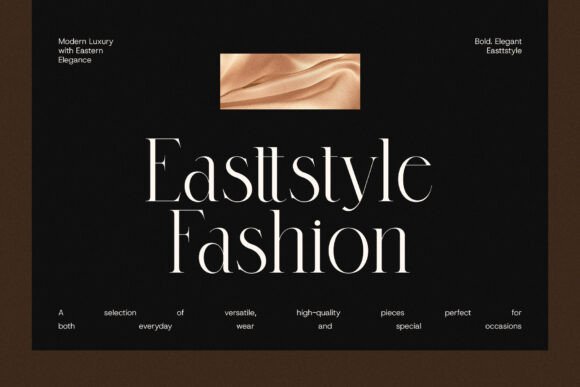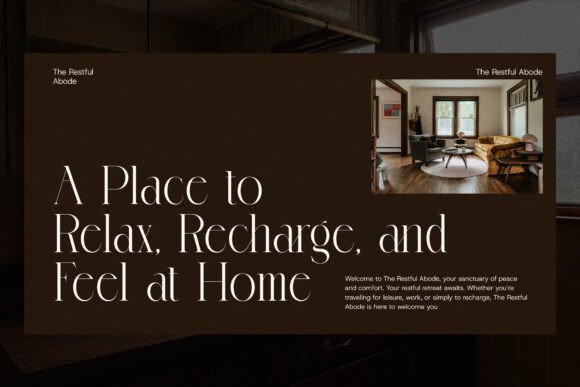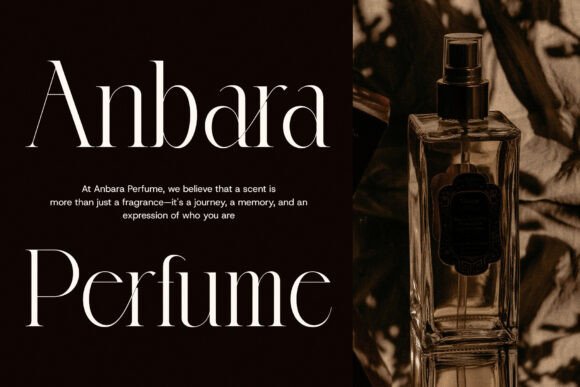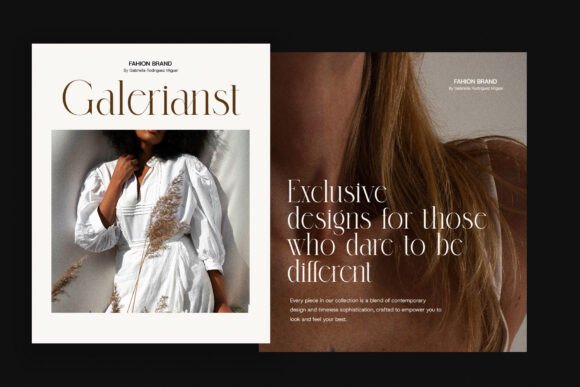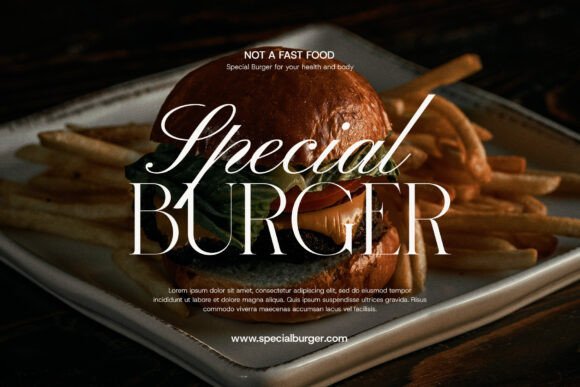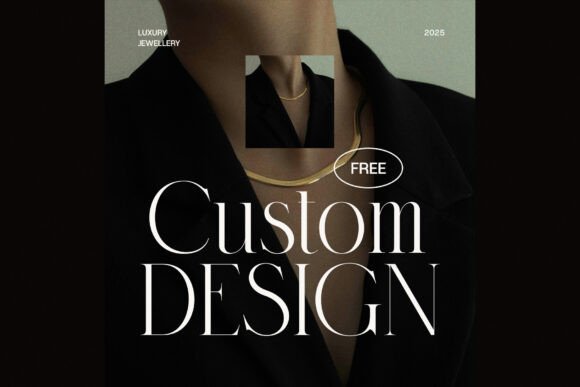
Introduction to Queny Font
As a designer, you’ve probably experienced that moment of creative bliss when you find the perfect font to elevate your project. For some, it’s the subtle nuance of a well-crafted sans-serif, while for others, it’s the sophisticated charm of a beautifully designed serif. For those who crave a touch of elegance, the Queny Font is sure to be a game-changer. This stunning typeface seamlessly blends timeless sophistication with modern design, making it the perfect addition to any high-quality design resource.
Whether you’re working on a luxurious logo, a high-end branding campaign, or an eye-catching advertisement, the Queny Font provides the ideal balance between classic style and modern appeal. Its unique letter shapes and beautifully crafted serifs make it a standout choice for designers looking to make a bold statement.
Key Features of Queny Font
- High-quality, professional font design ideal for creative projects.
- Includes a comprehensive character set, supporting multiple languages and alphabets for global design projects.
- Unique, elegant design aesthetic suitable for a wide range of creative projects, from logos to typography-based art.
Honest Review: Queny Font
As a designer, I’m always on the lookout for high-quality design resources that can elevate my creative projects. Recently, I stumbled upon Queny Font, and I must say, it’s been a game-changer for me.
What works well: ✨ The font is incredibly versatile, making it perfect for a wide range of creative projects. I’ve used it for everything from logos to social media graphics, and it always looks great. The transparent background is also a huge plus, as it gives me the flexibility to use the font on any background.
Overall, I’m really impressed with Queny Font. It’s a fantastic design resource that’s perfect for anyone looking to add a touch of elegance to their creative project. With a little bit of creativity, the watermark can be easily removed, and the font becomes a valuable addition to any designer’s toolkit.
Queny Font
Queny Font is a high-quality design resource perfect for creative projects that require a unique touch. With its transparent background, this font is ideal for overlaying text on images or backgrounds.
Tips for Getting the Most Out of Queny Font
To maximize the effectiveness of Queny Font, use it in combination with high-contrast backgrounds and bold colors. Experiment with different font sizes and styles to create visually appealing designs.
Queny Font is commonly used in creative projects such as:
- Graphic design and branding
- Infographics and data visualization
- Print and digital advertising
Alternatives to Queny Font
Can I use Queny Font with a transparent background?
Yes, Queny Font is designed to work well with transparent backgrounds. The font’s design style is clean and simple, making it easy to overlay on top of images or other design elements. Simply apply a transparent background to the font, and you’re good to go. This makes Queny Font a great choice for creative projects that require a high level of design flexibility.